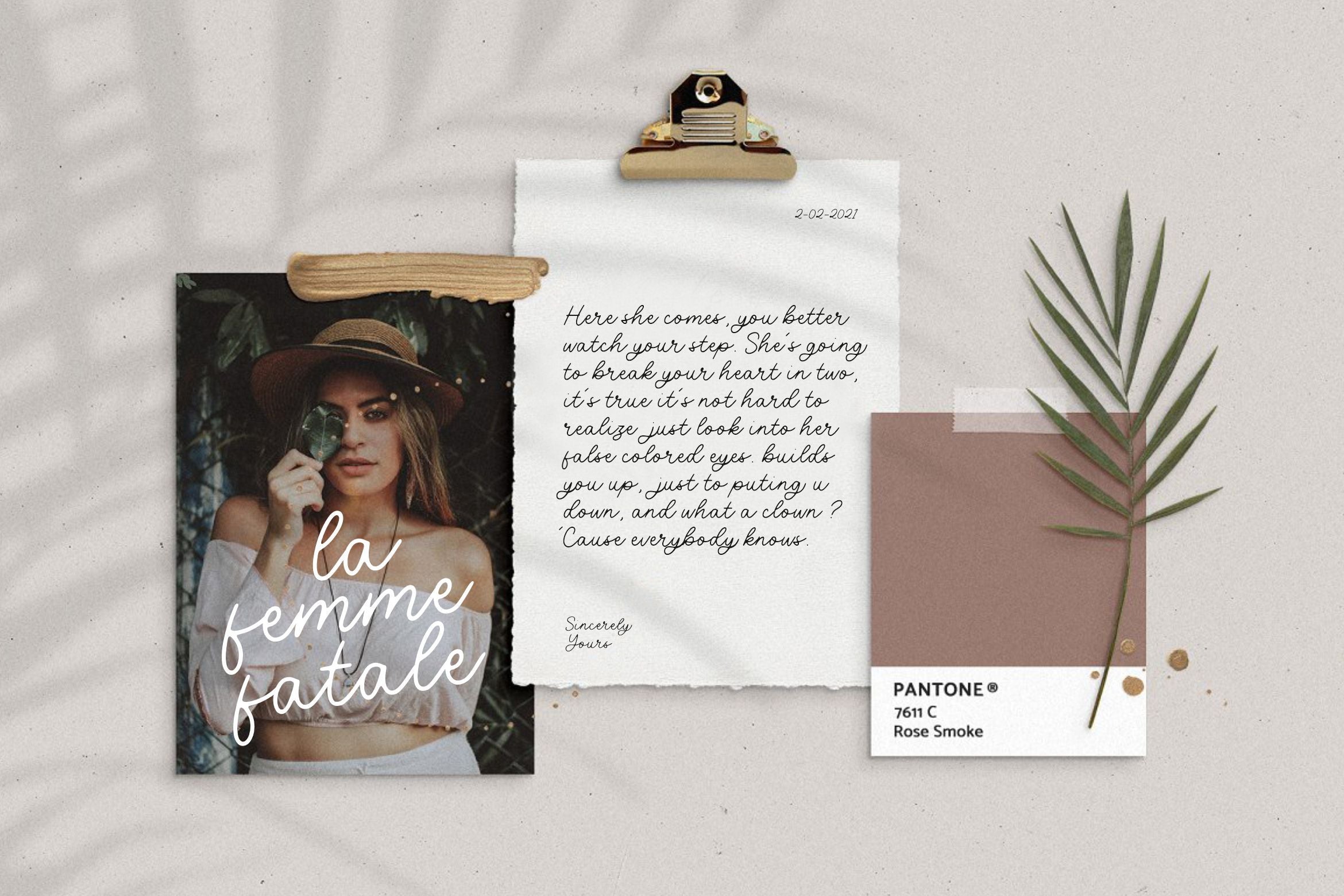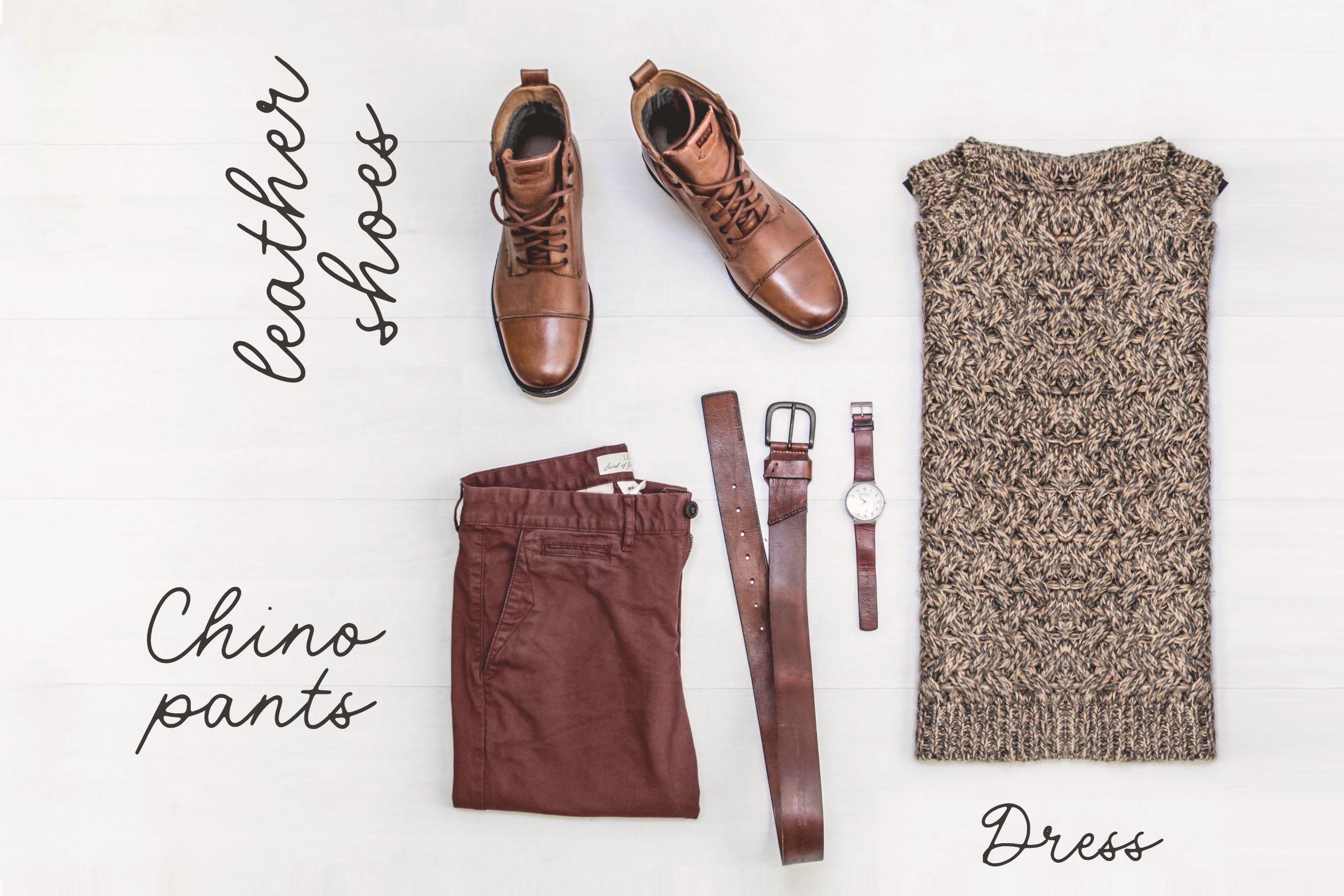
About Volatile Monoline Handwritten Script Font
Introducing by Letterative Studio : Volatile Font Volatile is Monoline Handwritten Script Font Volatile feels playfully nostalgic and delivers an incredible vintage aesthetic. Use this delicate script font to add a special touch to any design idea you can think of! This font includes : TTF and OTF Volatile also multilingual support Enjoy the font! Feel free to comment or feedback Send me PM or email Thank you!